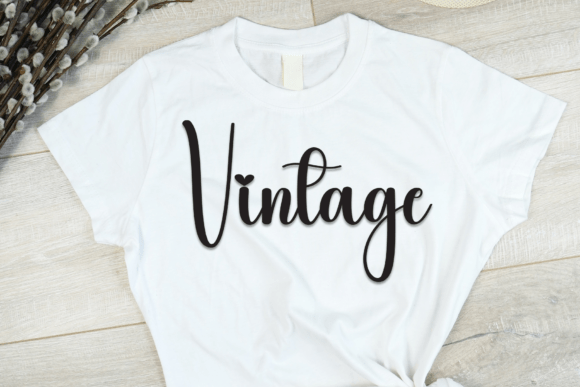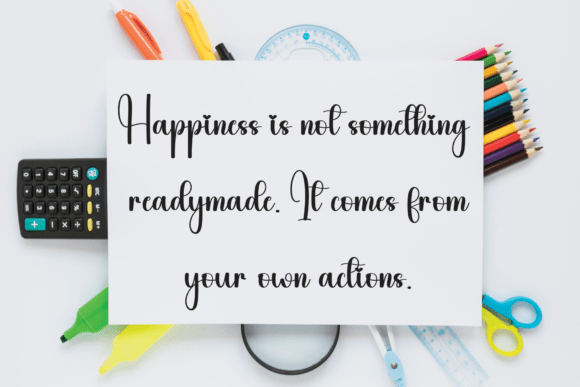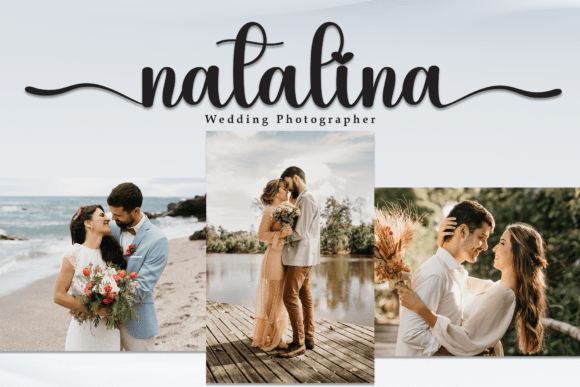
Angela Font
About the Angela Font
Unleash your creativity with Angela Font, a versatile font perfect for a wide range of applications. This display handwritten font bursts with personality and charm, capturing the warmth of real handwriting with bold, eye-catching strokes. Designed to stand out while maintaining a natural flow, it’s perfect for logos, social media graphics, posters, and anything that calls for a personal, expressive touch. Whether you’re crafting a heartfelt quote or branding a creative product, this font brings authenticity and flair to your design.
Angela Font excels in headlines, short taglines, and social media posts where its bold strokes command attention. It’s ideal for branding projects needing a handcrafted, approachable feel, particularly for artisan goods, cafes, or lifestyle brands. However, its display nature makes it unsuitable for body text or UI elements requiring high readability. Extended use would strain legibility.
Pairing Angela with a clean sans-serif like Open Sans for body copy creates a strong visual contrast, balancing the handwritten informality with a structured, readable text. For a more playful feel, a rounded geometric sans-serif like Lato could be used. A delicate serif like Merriweather can add a touch of elegance if a more sophisticated feel is required.
Angela’s overall personality is best described as friendly and approachable, yet bold and confident. Its handcrafted quality conveys authenticity and warmth, making it a great choice for brands emphasizing human connection and creative expression.
Angela Font Example